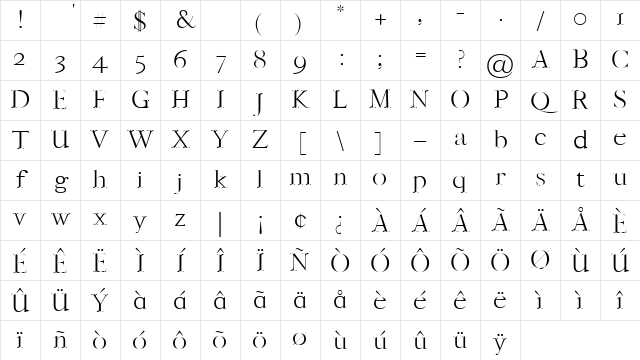
Complete Sharis Med Regular glyph index. Displaying only characters natively supported by Sharis Med Regular font.
Sharis Med is a composed and adaptable typeface that performs quietly and consistently across a wide range of design contexts.